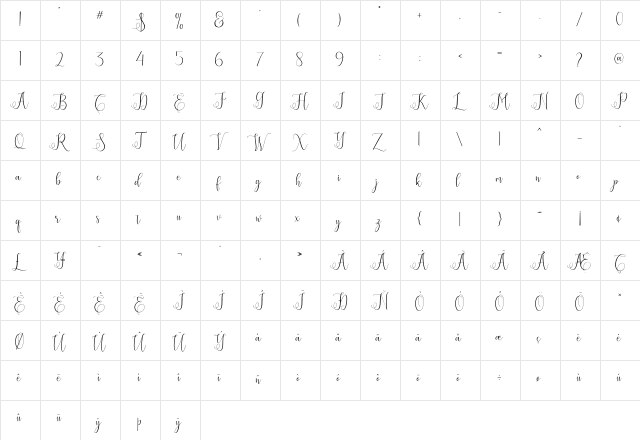
Eritta Script Regular
Design Context for Eritta Script Typeface
Eritta Script flows with the natural rhythm of handwritten lettering, making it ideal for designs that call for warmth and personal expression.
Font Pairing: Combine Eritta Script with a simple geometric sans for maximum contrast — the tension between flowing curves and clean structure is a classic typographic pairing.
Pro Tip: Pair Eritta Script with a clean sans-serif for supporting text. The contrast between fluid script and geometric structure creates an elegant typographic hierarchy.